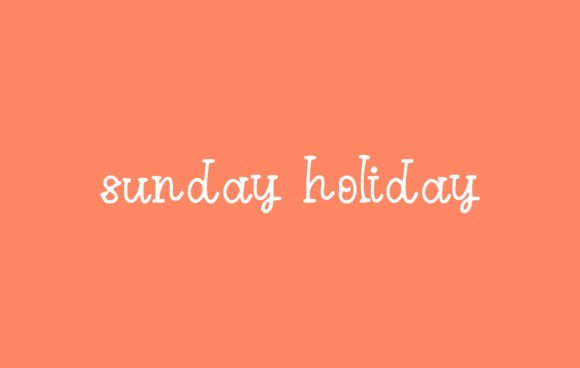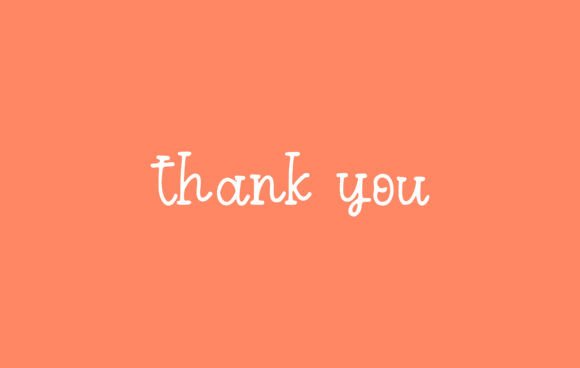
Introduction to Preston Font
Remember the moment when a font choice sparks an entire creative project into life? For many designers, it’s a moment of pure joy and inspiration. That’s exactly what happens when you work with the stunning Preston Font. This authentic handwritten font exudes a romantic touch that’s sure to elevate your designs to new heights.
As a go-to design resource, Preston Font offers unparalleled versatility, making it perfect for a wide range of creative applications. From magazine headlines to social media graphics, and from wedding invitations to branding materials, this font is sure to impress. With its legibility and aesthetic appeal, it’s no wonder that designers are falling in love with Preston Font.
Key Features of Preston Font
- High-quality design resource perfect for creative projects, with a unique and modern aesthetic.
- Supports multiple languages and character sets, making it a versatile design resource for global creative projects.
- Preston Font is a professional-grade design resource, ideal for use in logos, branding, and other high-end creative projects.
Honest Review: Preston Font
As a designer, I’m always on the lookout for high-quality design resources to elevate my creative projects. Recently, I had the chance to try out the Preston Font, and I’m excited to share my honest review.
- ✨ The Preston Font offers a wide range of styles and weights, making it a great addition to any design project.
- ✨ The font is highly customizable, with options for transparent background and various color schemes.
- ⚠️ The font may not be suitable for projects that require a lot of bold or italic text, as it can become difficult to read.
- ⚠️ The Preston Font may not be the best choice for designs that require a lot of intricate details, as it can appear a bit generic.
Overall, I’m impressed with the Preston Font, and I think it’s a great addition to any designer’s toolkit. While it may have some limitations, its high-quality design and versatility make it a solid choice for a wide range of creative projects.
Preston Font
Tips for Getting the Most Out of Preston Font
Use the Preston Font with a transparent background to create a clean and modern design. Experiment with different font sizes and styles to add visual interest to your design. Consider pairing the Preston Font with other design resources, such as graphics and images, to create a cohesive and high-quality design.
Common Use Cases for Preston Font
The Preston Font is ideal for use in creative projects, such as logos, business cards, and marketing materials. It’s also a great choice for use in presentations, documents, and websites. With its high-quality design and versatility, the Preston Font is a valuable addition to any design resource collection.